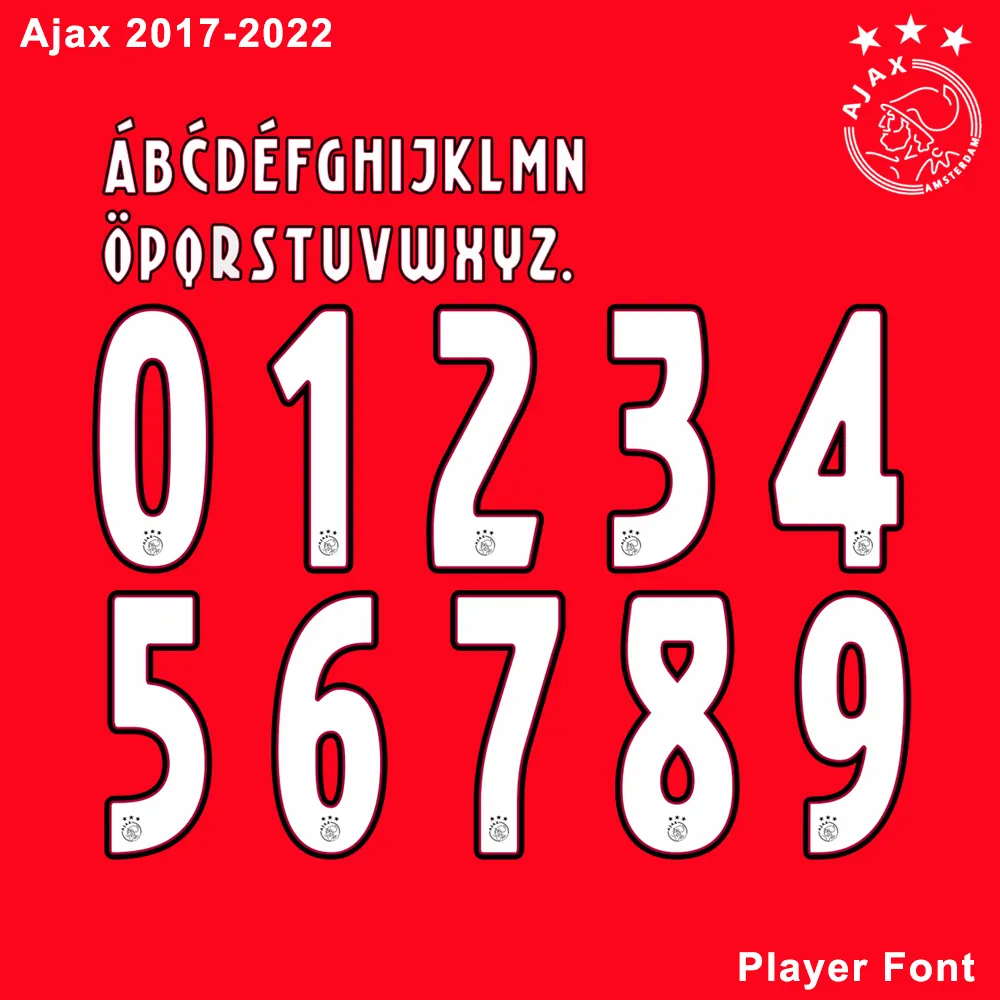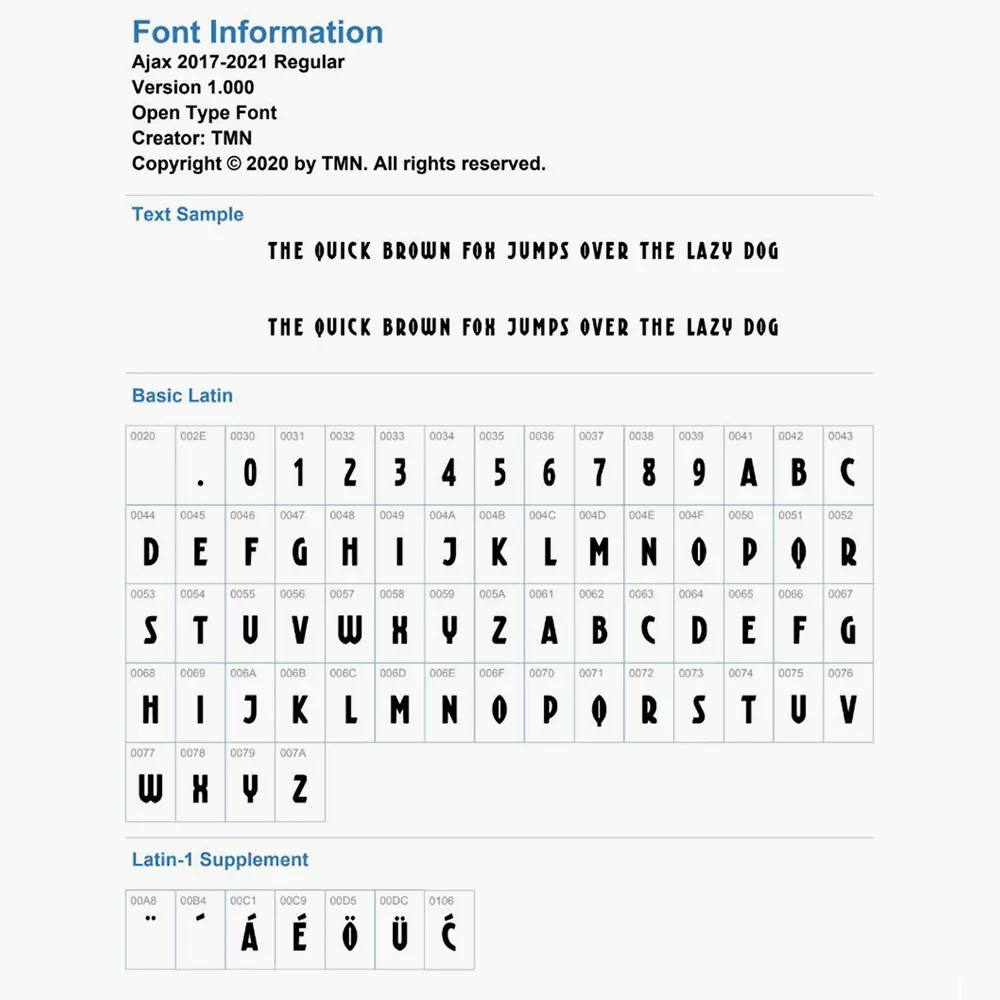
Ajax 2020-2021 Kit Font
Bring the legendary style of the Godenzonen to your designs with the Ajax 2020-2021 Kit Font. This pack features the modern, rounded sans-serif typeface used by stars like Dušan Tadić during their successful 20/21 campaign. Includes installable TTF/OTF fonts and high-quality AI, CDR, and PDF vector files.
Elevate your sports apparel projects with the official-style Ajax Amsterdam 2020-2021 Kit Font.
The 2020-21 season saw Ajax dominate the Eredivisie with a kit design that blended tradition with a clean, contemporary typeface. This font kit is meticulously crafted to replicate the proportions and spacing used on the official match kits, making it an essential tool for jersey restorers, graphic designers, and fans.
• Full Character Set: Includes the complete A-Z uppercase alphabet and the stylized 0-9 number set used in the Eredivisie and European competitions.